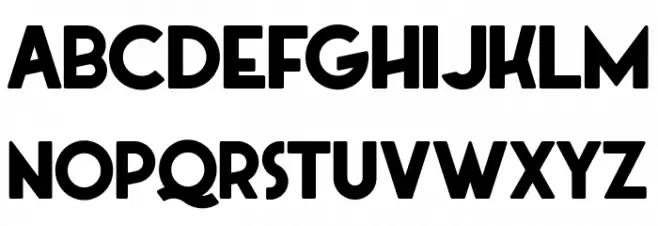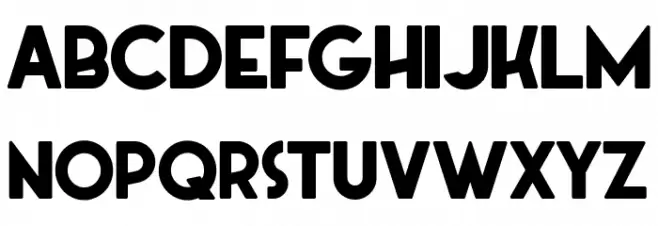
Guaraldo Personal Use Font
Guaraldo Personal Use Description
This font features bold, geometric letterforms with a strong presence. The characters are crafted with clean lines and a uniform stroke width, giving them a modern and assertive appearance. The uppercase letters are particularly striking, with a consistent height and width that create a cohesive look. The lowercase letters maintain the same boldness, ensuring readability and impact. The special characters, such as the ampersand and exclamation mark, are designed with the same attention to detail, making them stand out. Overall, this font exudes confidence and is ideal for making a statement.
A bold, geometric font with clean lines and a modern, assertive style from Uncategorized fonts.
- Proposed Projects: Ideal for branding, headlines, posters, and any project requiring a strong visual impact.